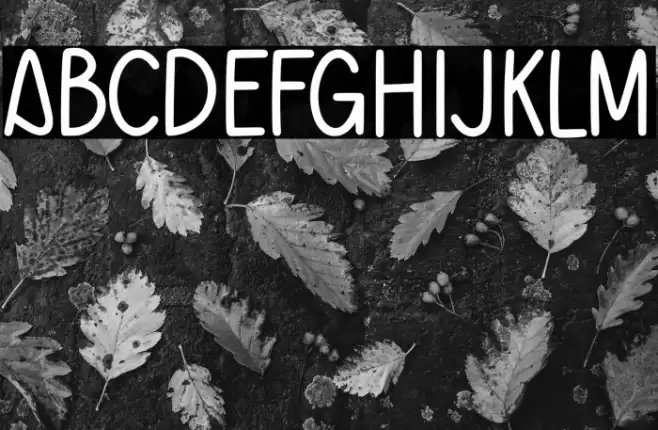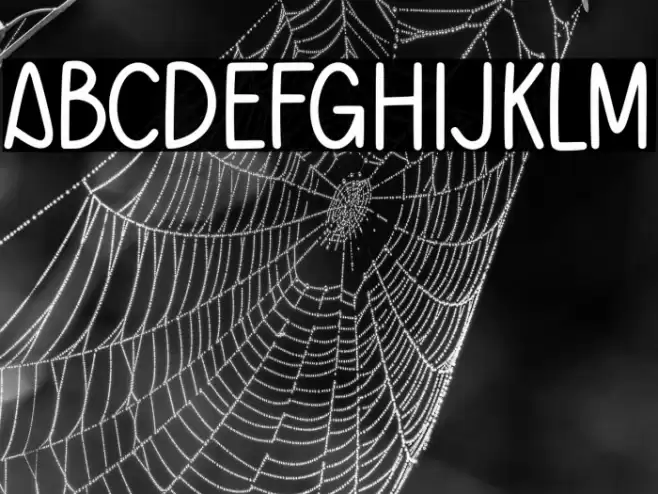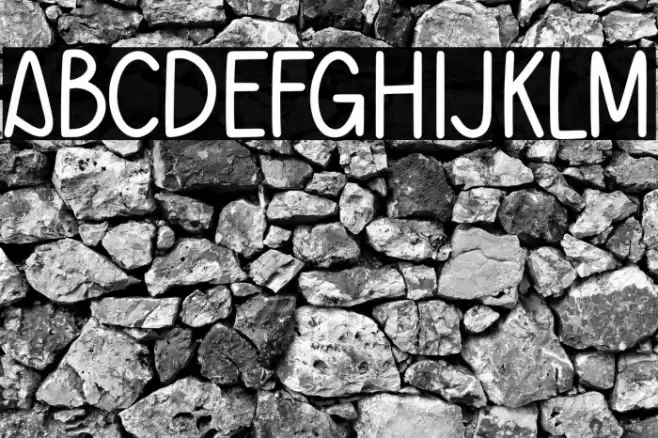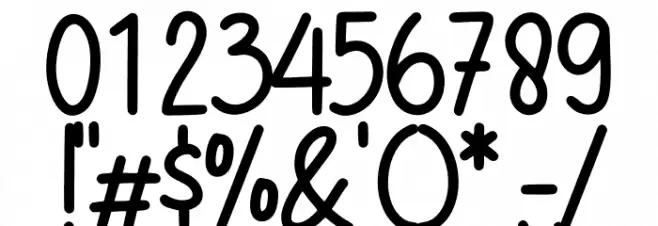
Joynoted Demo Font
Joynoted Demo Description
This font features a playful and informal handwritten style, characterized by smooth, rounded edges and a consistent stroke width. The letters are slightly elongated, giving them a tall and narrow appearance. The overall look is casual and friendly, making it suitable for projects that require a personal touch. The numerals and special characters maintain the same playful aesthetic, ensuring consistency across all text elements. This font is versatile and can be used in various design contexts where a relaxed and approachable feel is desired.
A playful, handwritten font with smooth, rounded edges and a casual style from Uncategorized fonts.
- Font: Joynoted Demo
- Proposed Projects: Ideal for greeting cards, children's books, casual branding, and social media graphics.
- Overall Style: Casual
- Use Case: Headlines, Informal text, Branding